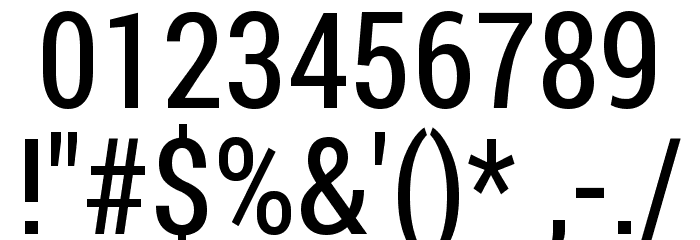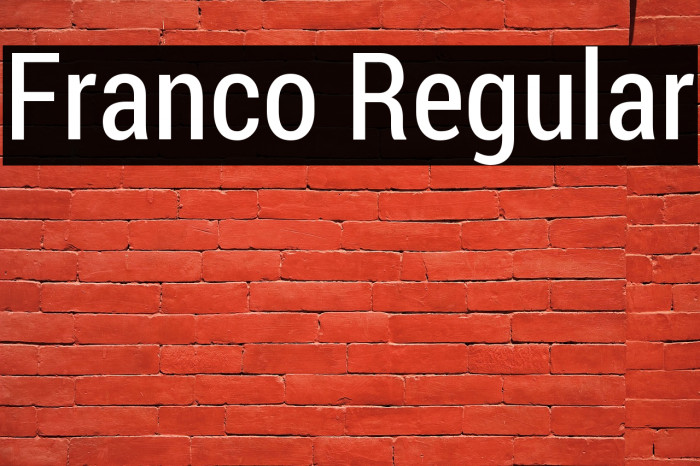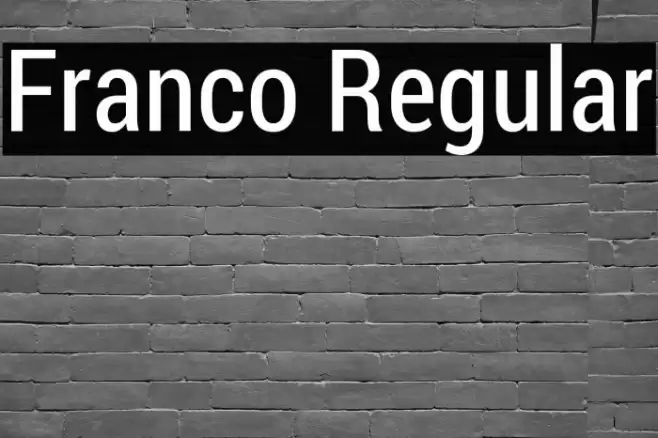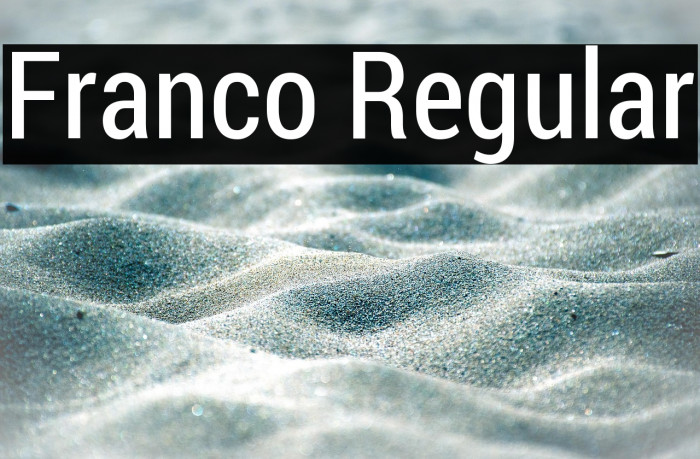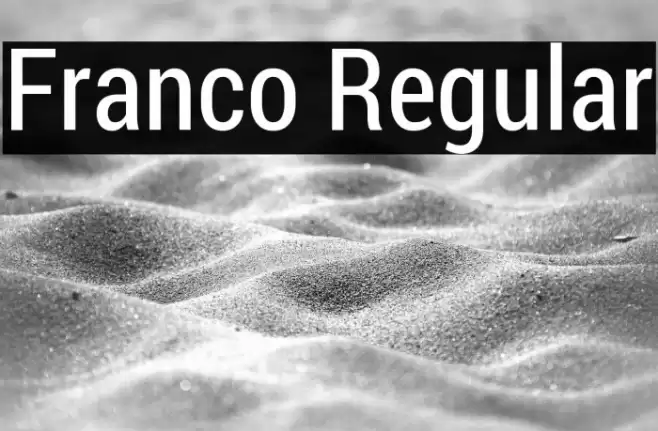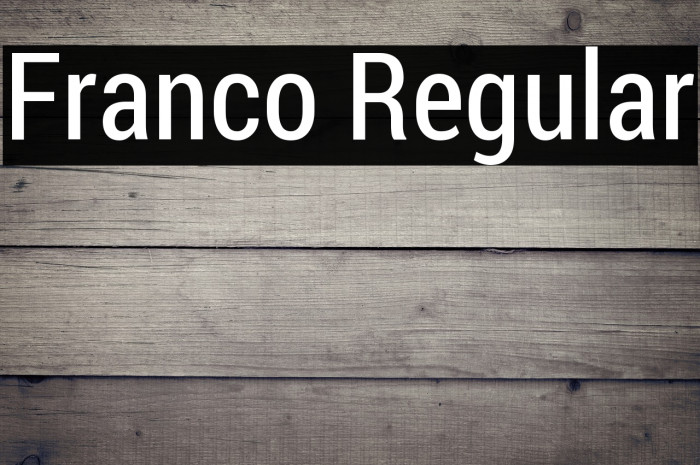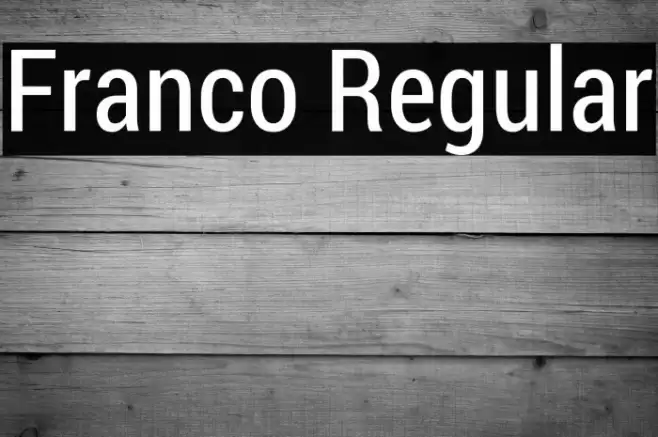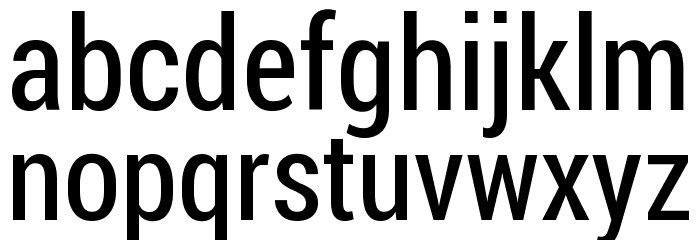
Franco Regular Font
Franco Regular Description
This font features a clean and modern sans-serif design with uniform stroke widths and a straightforward appearance. The characters are well-proportioned, providing excellent readability across both uppercase and lowercase letters. The numerals are distinct and easy to distinguish, while the special characters maintain the same clarity and simplicity. The overall aesthetic is minimalistic, making it versatile for various design applications. Its geometric shapes and balanced structure give it a professional and contemporary feel, suitable for digital and print media.